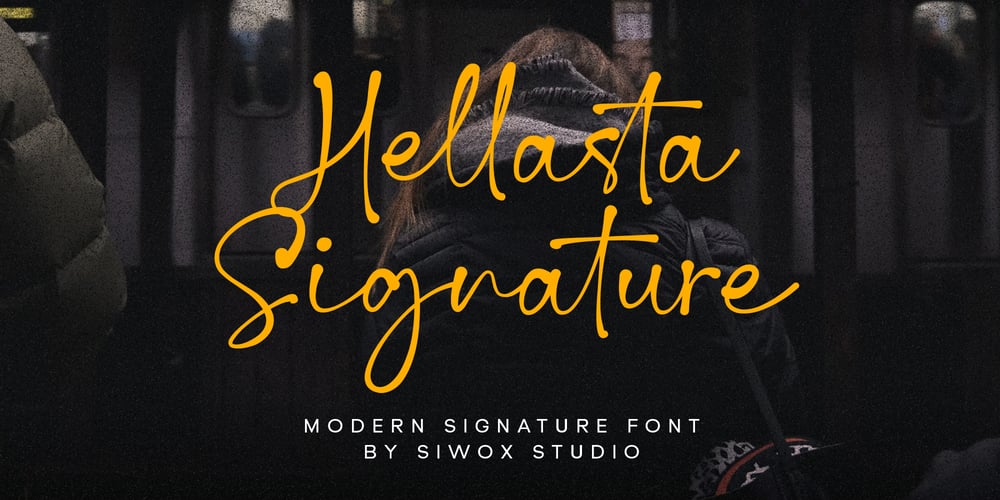
Hellasta Signature Font Family was designed by Rizaldi Wandani and published by Siwox Studios. Hellasta Signature contains 1 styles and family package options. Introducing Hellasta Signature, your go-to choice for a distinctive, organically handwritten font. Celebrated for its versatility, this typeface is an ideal fit for your branding projects, unique signatures, intimate wedding invitations, dynamic promotions, and eye-catching product packaging.Its universality becomes evident with its immaculate multilingual support, ensuring your design communicates beautifully. Deploy Hellasta Signature and witness your creative endeavors come alive with character and authenticity.